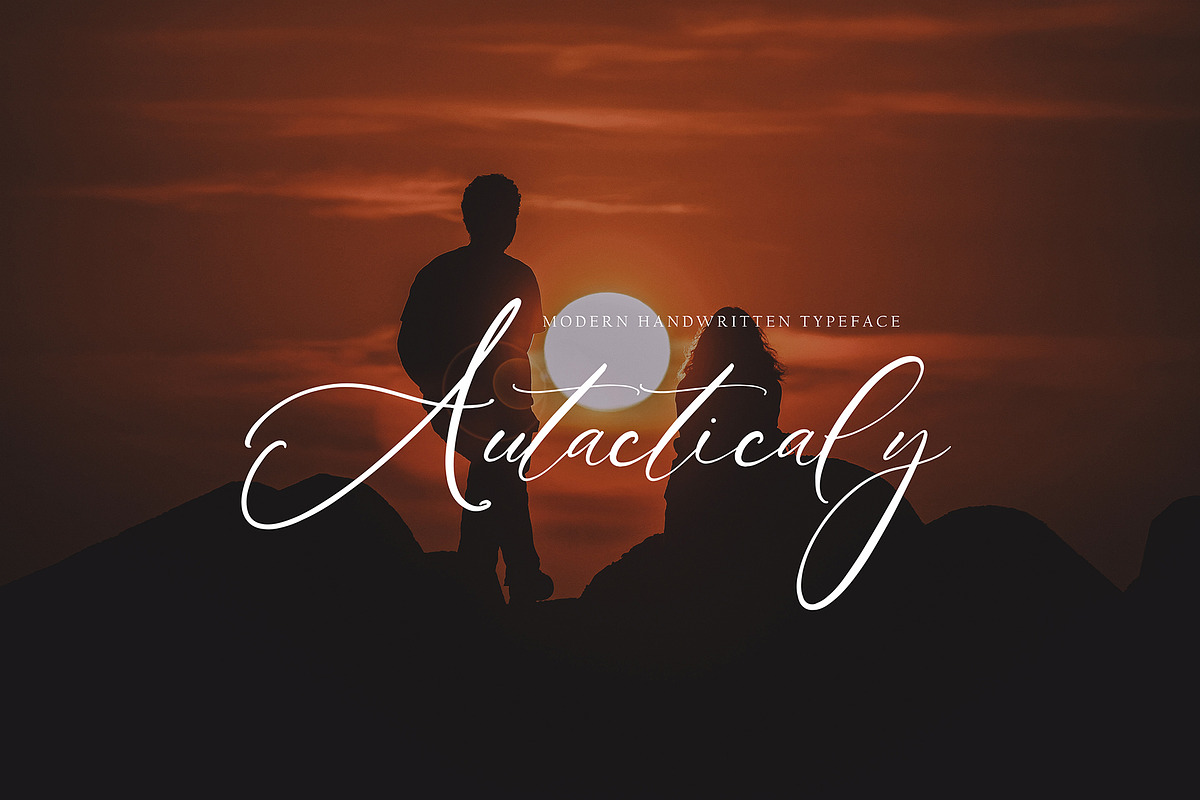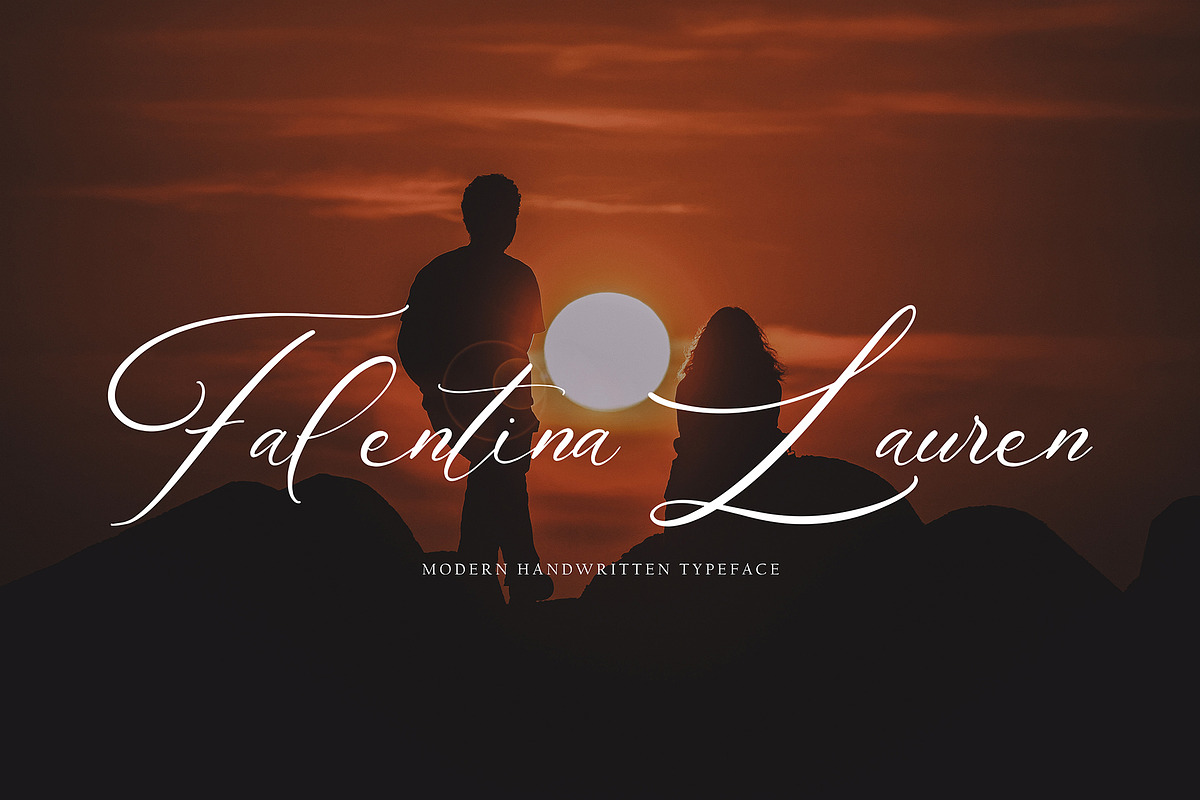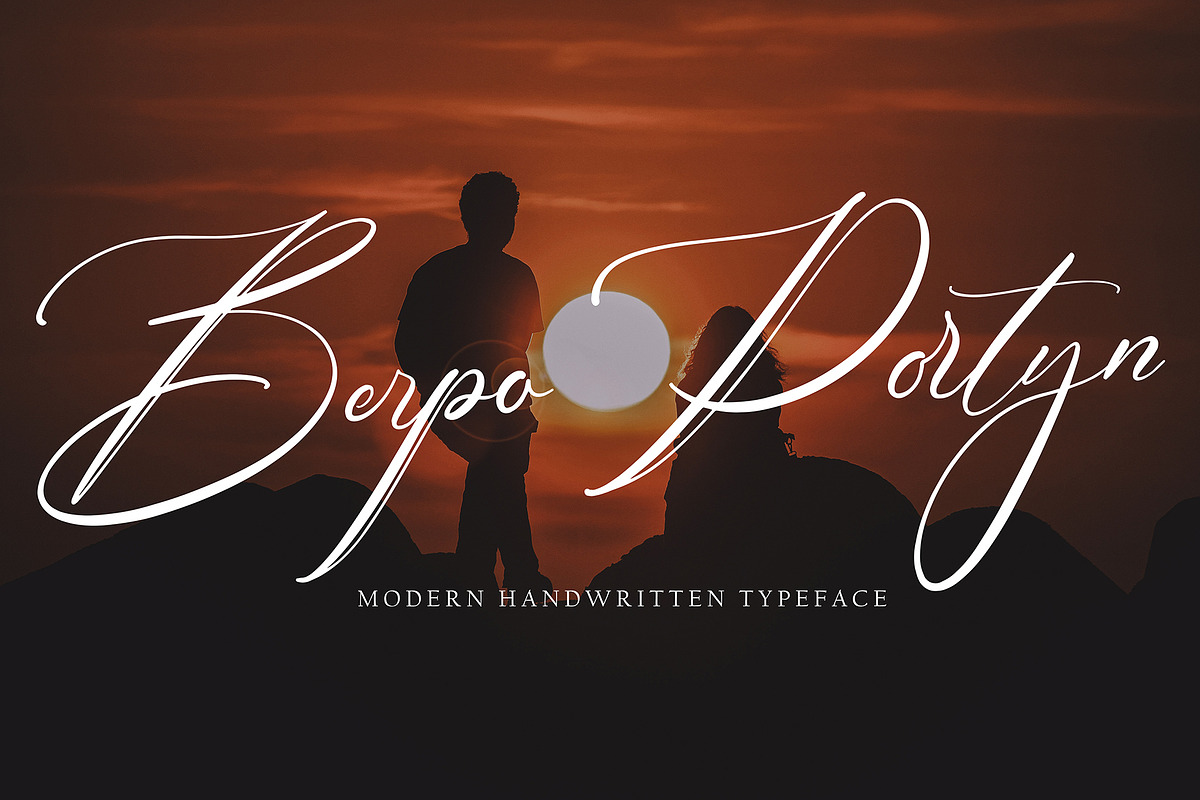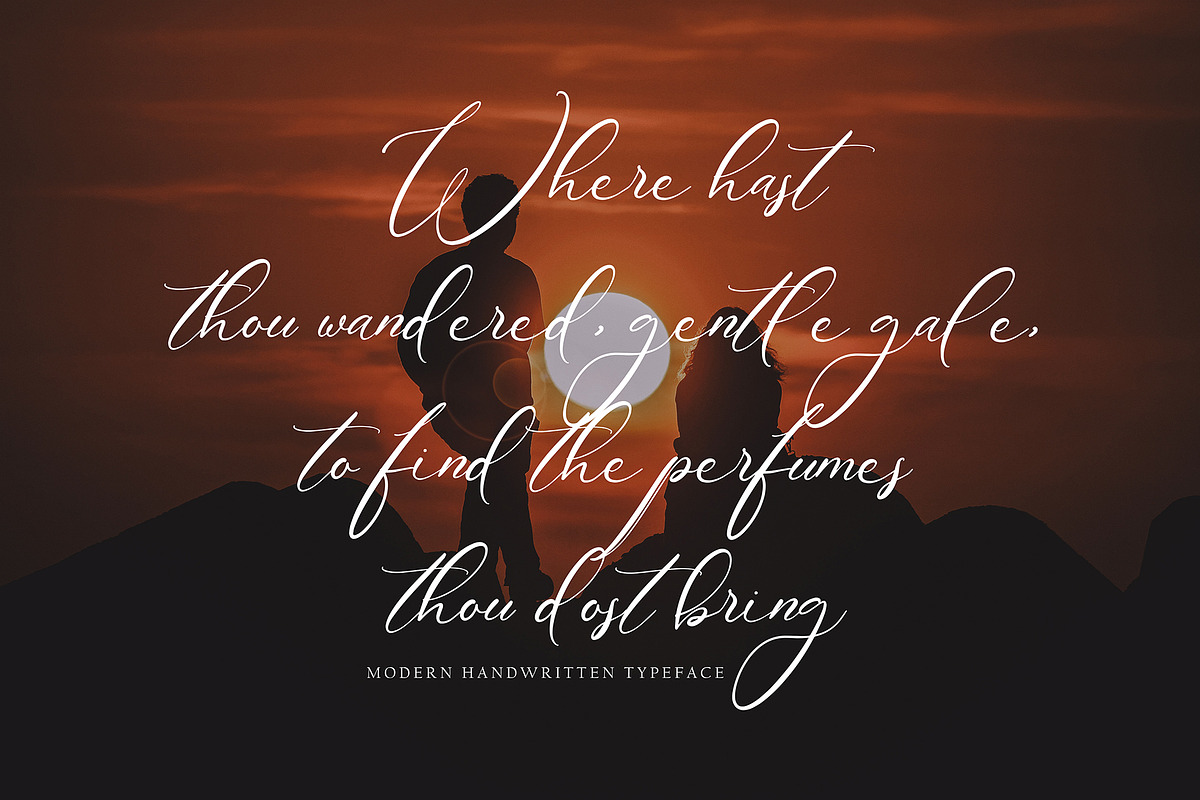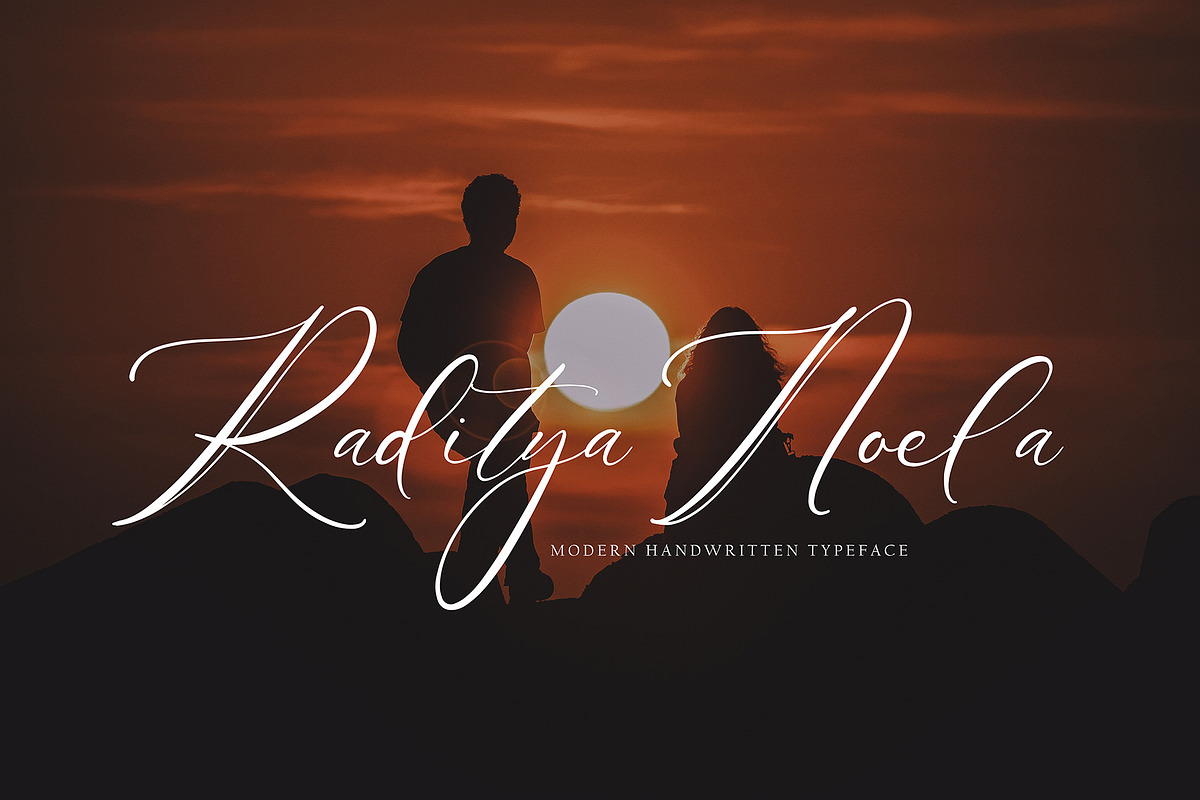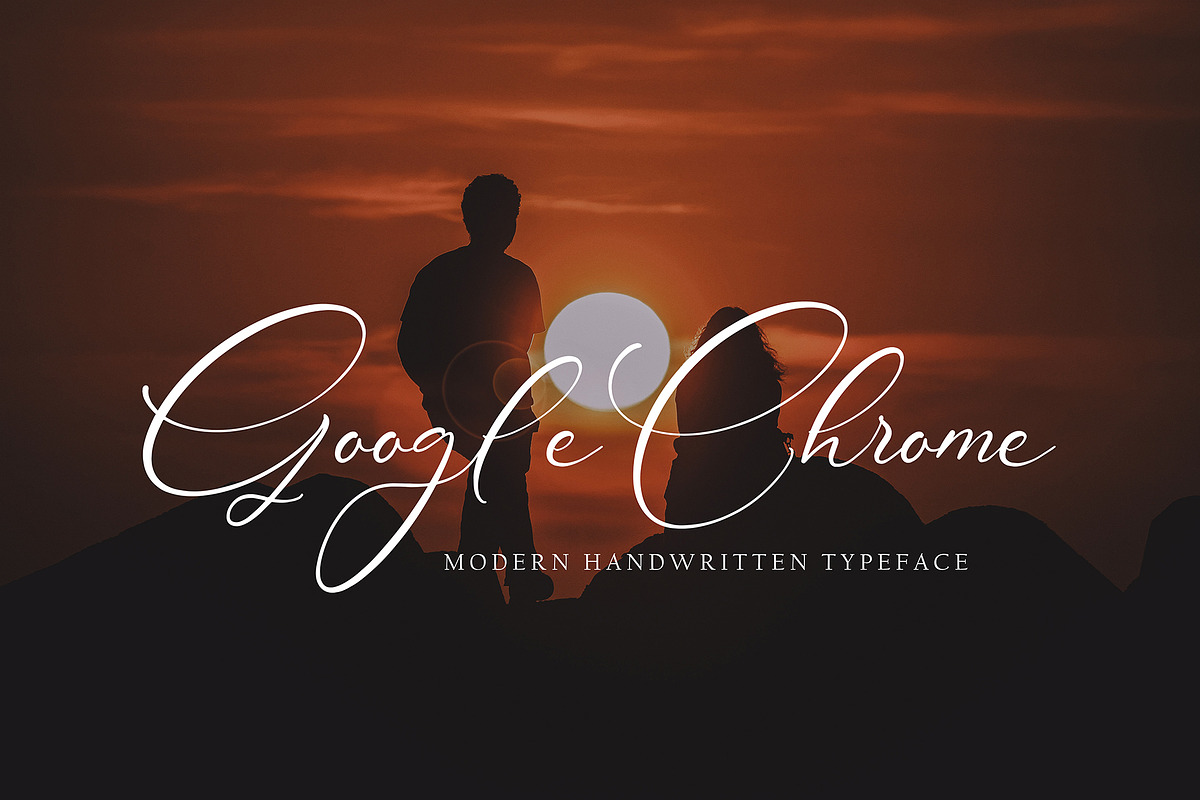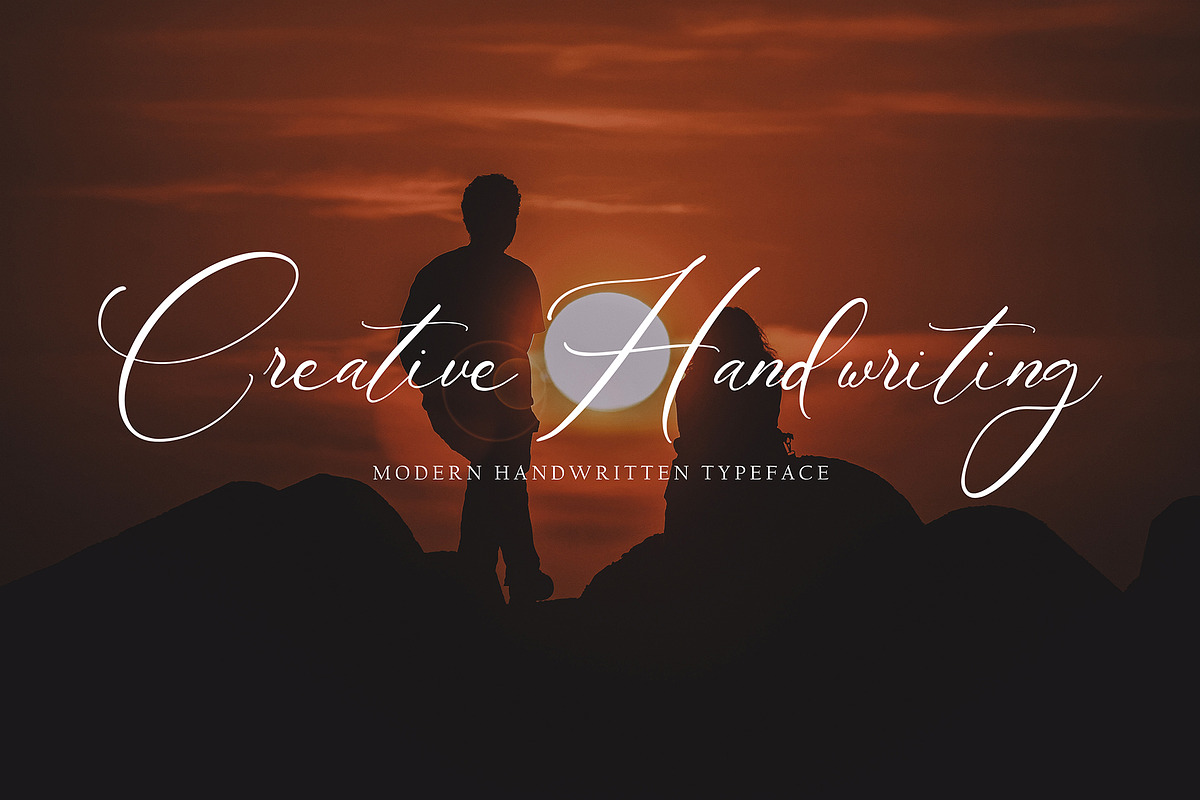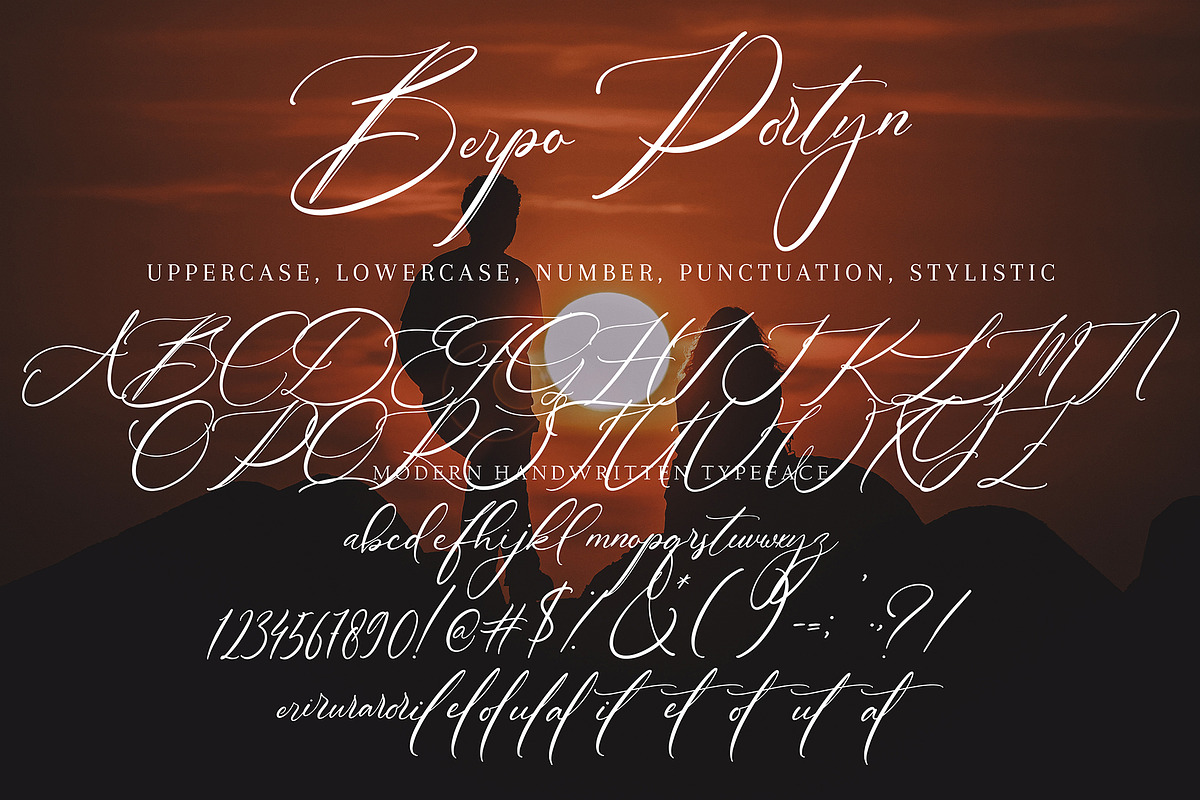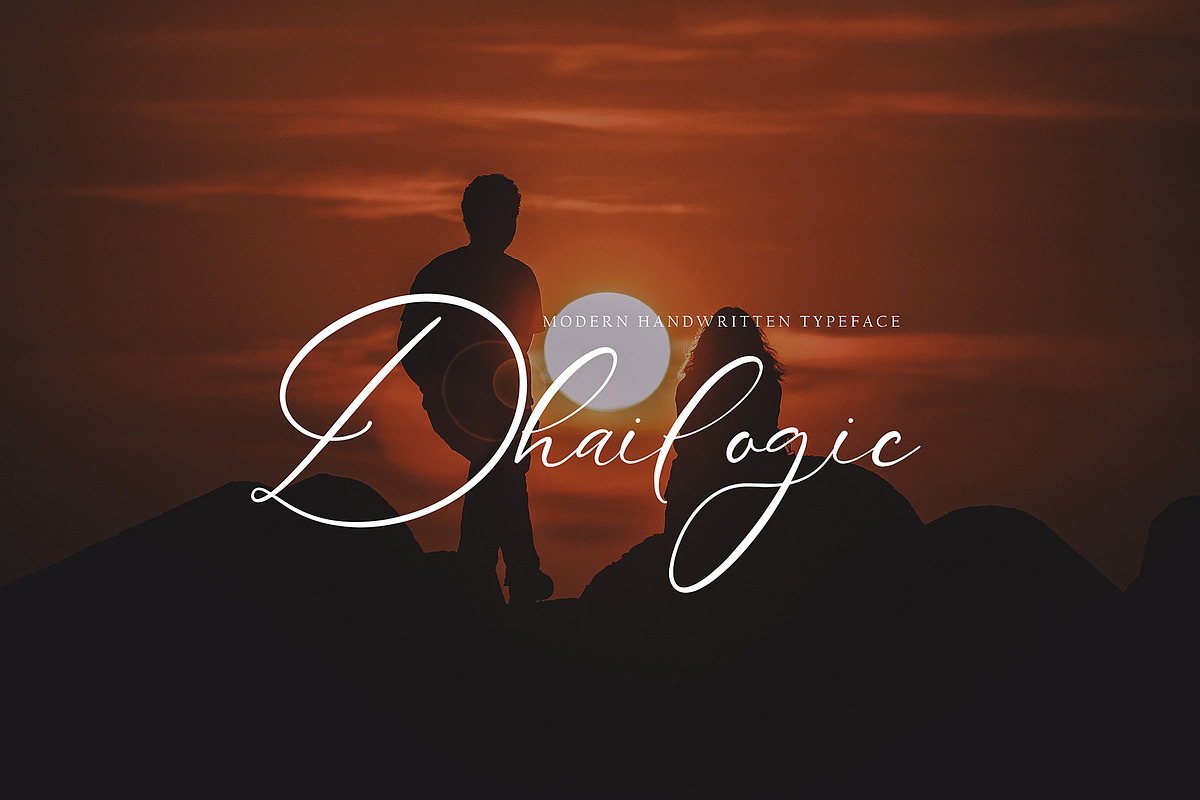
Berpo Portyn
Berpo Portyn font with new style, this font will perfect for many different project ex: quotes, logo, blog header, poster, banding, letter, invitation, stationery, etc...